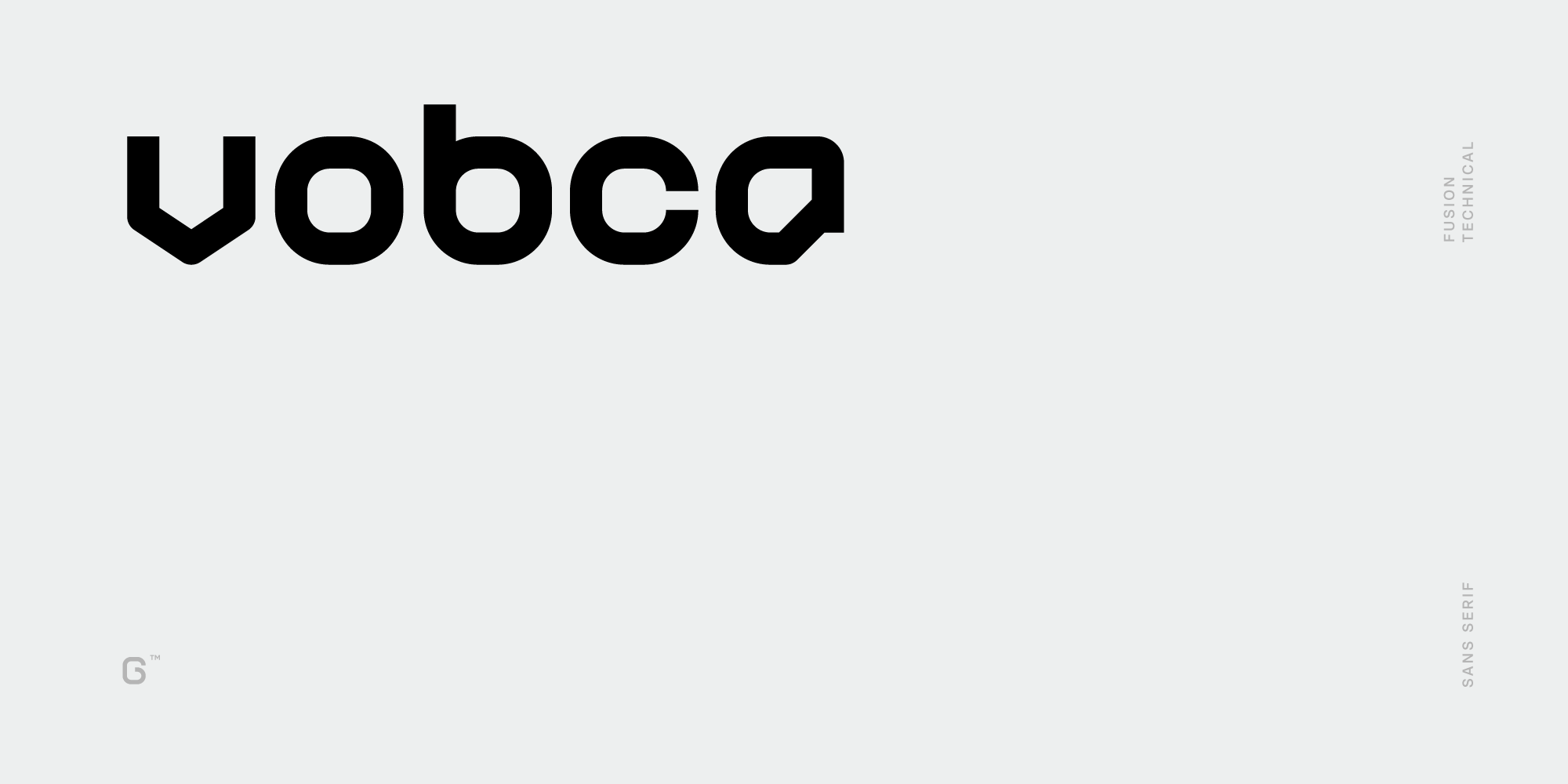
The Vobca Font excels in various design applications including contemporary fashion branding, artistic poster design, creative agency portfolios, modern logo development, experimental typography projects, avant-garde magazine layouts, innovative web design, artistic merchandise, progressive brand identities, and cutting-edge digital communications that demand distinctive visual personality and creative expression.
What makes the Vobca Font exciting is its bold exploration of typographic boundaries through unconventional letterforms that challenge traditional design conventions while maintaining functional readability. This typeface represents artistic innovation in typography, featuring unique character designs that create immediate visual impact and memorable brand recognition. The font's experimental nature makes it perfect for creative professionals and forward-thinking brands seeking to differentiate themselves through typography that sparks curiosity and demonstrates creative courage.
The Vobca Font family typically includes multiple style variations that explore different artistic interpretations of the core design concept, often featuring alternate character sets, stylistic variations, and decorative elements. These family options may include experimental weights, artistic ligatures, and creative glyphs that provide designers with extensive possibilities for customizing typography to match specific creative visions and brand personalities.
Creative industry professionals and artistic brands consistently select Vobca Font Free Download for projects requiring distinctive, memorable typography that captures attention and creates lasting impressions. This typeface delivers exceptional performance in creative markets where visual differentiation and artistic expression are crucial for standing out from conventional design approaches. The font's unique character makes it particularly valuable for brands targeting creative audiences and artistic communities. Download Vobca Font Free Download today to access this remarkable typeface that transforms ordinary text into extraordinary artistic statements, elevating your creative projects with its innovative design philosophy and distinctive visual personality that celebrates typographic experimentation.